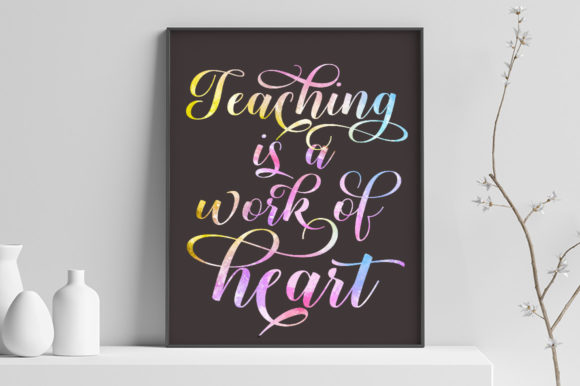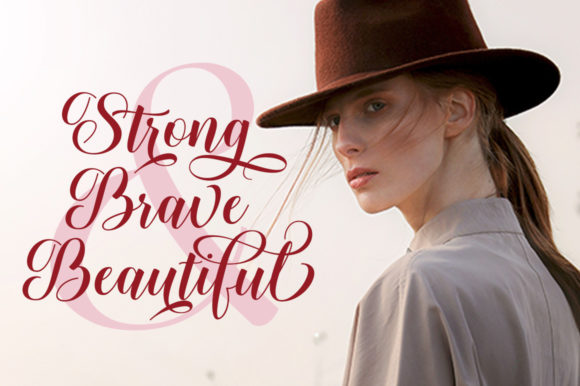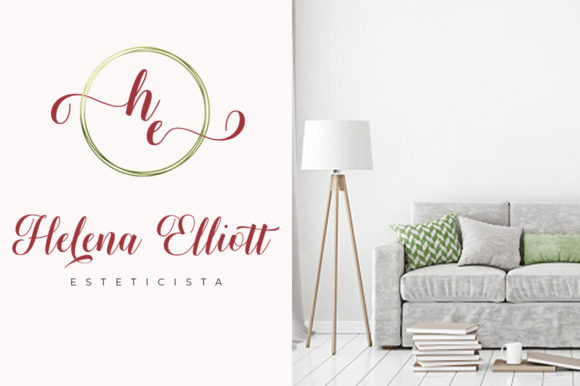
Introduction to Qellina Font
You know that feeling when you’re working on a creative project and you need that one perfect element to bring it all together? The right font can make all the difference, adding a touch of elegance and sophistication to your design. For designers, finding the perfect font can be a game-changer, and that’s exactly what Qellina Font offers.
With its clean and chic script design, Qellina Font is the perfect addition to any high-quality design project. Whether you’re working on a brochure, website, or social media campaign, this versatile font is sure to impress. And the best part? It’s available for free download, making it an essential design resource for any creative project.
So why is Qellina Font so valuable for designers? For starters, its transparent background makes it easy to work with, and its high-quality design ensures that your project will look amazing. Whether you’re a seasoned pro or just starting out, Qellina Font is a must-have in your design arsenal.
Key Features of Qellina Font
- High-quality design with a transparent background, perfect for creative projects.
- Unique characteristics: elegant script, cursive, and handwritten style, ideal for titles, headings, and quotes.
Honest Review: Qellina Font
I recently had the chance to work with the Qellina Font in a creative project, and I must say it’s been a great experience. This high-quality font is perfect for designers looking for a unique and elegant design resource.
- Beautiful, intricate designs that add a touch of sophistication to any project
- Transparent background, allowing for seamless integration into any design
- Wide range of styles and variations to suit different design needs
One of the standout features of the Qellina Font is its versatility. Whether you’re working on a corporate branding project or a personal design piece, this font is sure to impress.
- Some users may find the font’s intricate designs overwhelming or difficult to read in certain contexts
Overall, I’m extremely impressed with the Qellina Font. Its unique design, high quality, and free download option make it a valuable resource for any designer. While it may have some limitations, I highly recommend giving it a try for your next creative project.
The Qellina Font is ideal for use in logos, branding materials, and other design projects where a high-quality, modern font is needed. It’s also great for use in presentations, reports, and other documents where a professional look is required.